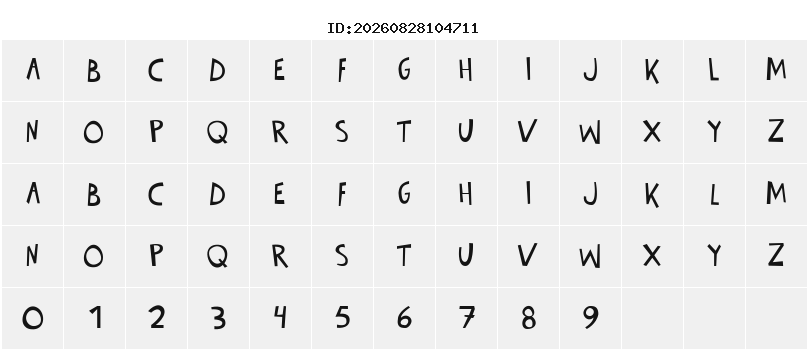
Totally Oilsome Preview
• Font Name: Totally Oilsome
• Full Font Name: Totally OilsomeRegular
• Character Count: 85
• Manufacturer: Erik Jacob Jeddere-Fisher
About Totally Oilsome.ttf
Totally Oilsome.ttf is a modern, elegant sans-serif font designed for ultimate readability and visual harmony. Perfect for branding, headlines, web design, and print materials.